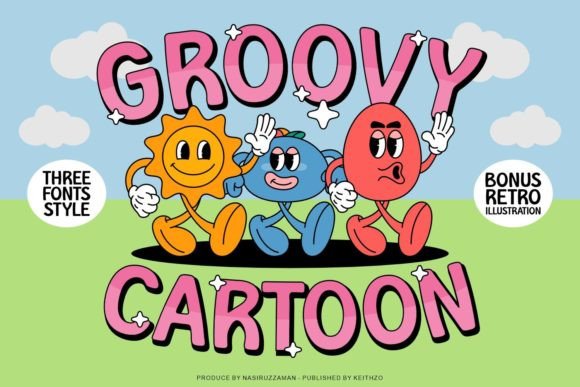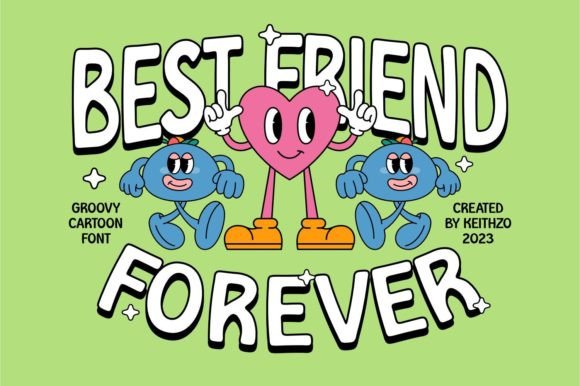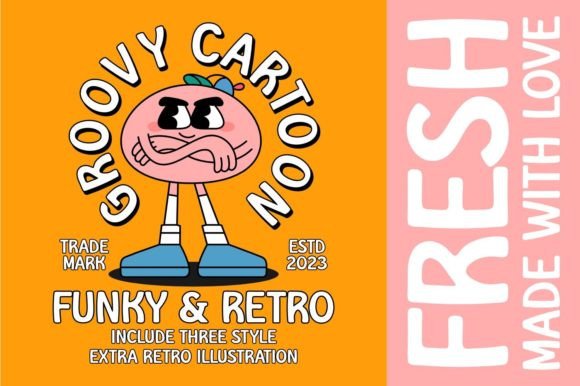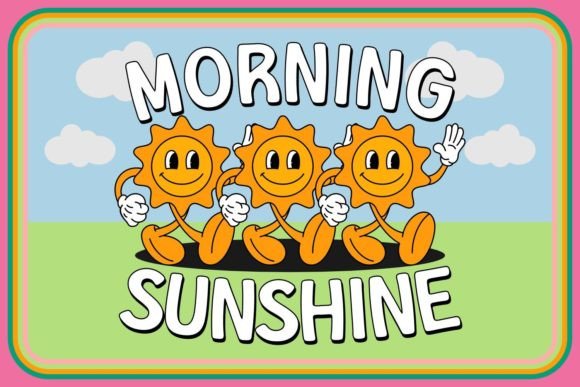
Groovy Cartoon Font
About the Groovy Cartoon Font
Unleash your creativity with Groovy Cartoon Font, a versatile font perfect for a wide range of applications. A balanced fusion of playful and professional, there are a ton of design projects this font will be perfect for. So add it to your creative ideas and notice how it makes them stand out!
Groovy Cartoon Font is ideally suited for headlines, logos, short-form text in marketing materials, and children’s book illustrations. Its playful nature makes it excellent for projects needing a fun, approachable feel. Avoid using it for body text or lengthy paragraphs; its unique character forms are not optimized for readability in extended blocks of text. It also isn’t well-suited for UI applications requiring high legibility.
This font’s personality is undeniably bold and friendly. To complement this, consider pairing it with a clean sans-serif like Open Sans for body copy, or a more geometric sans-serif like Futura for a modern contrast. For a more whimsical approach, a delicate script font could add an elegant counterpoint.
Brands targeting a younger demographic or those with a lighthearted, energetic brand identity will find this font particularly effective.
Groovy Cartoon Font Usage Examples
Groovy Cartoon Font Example